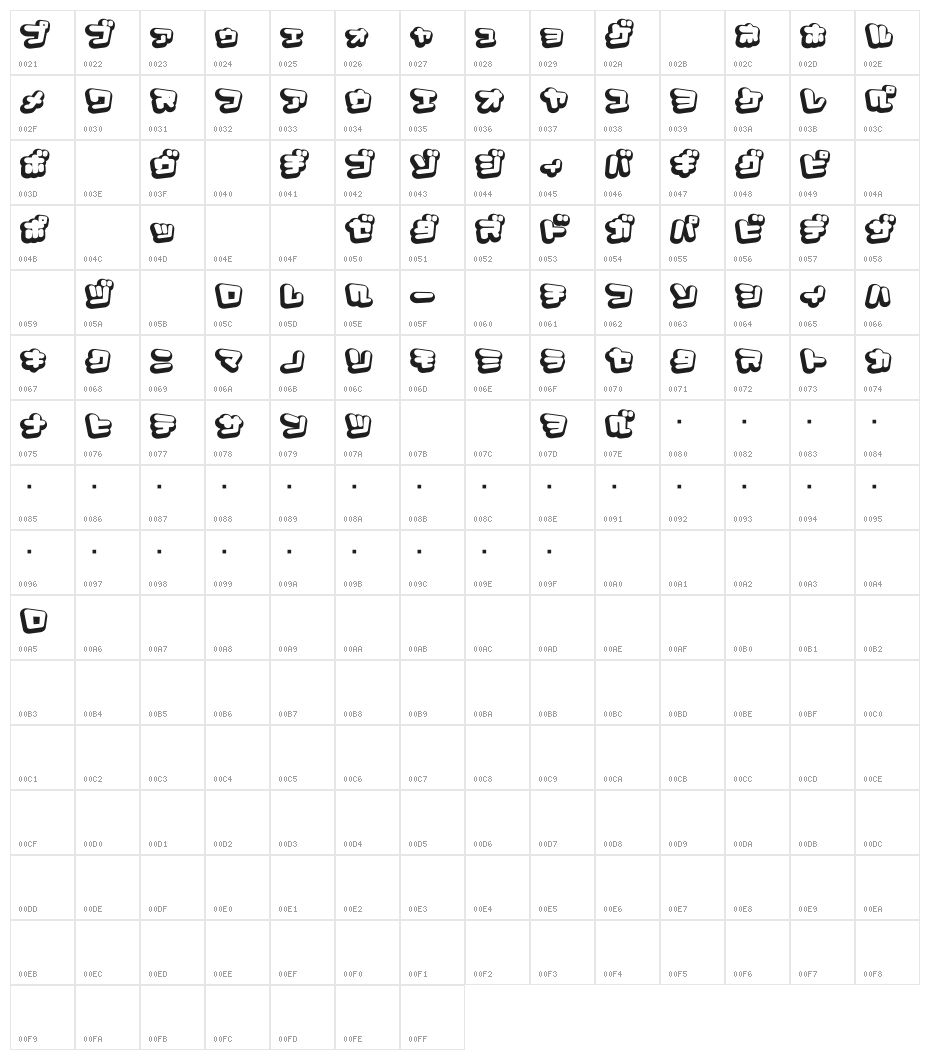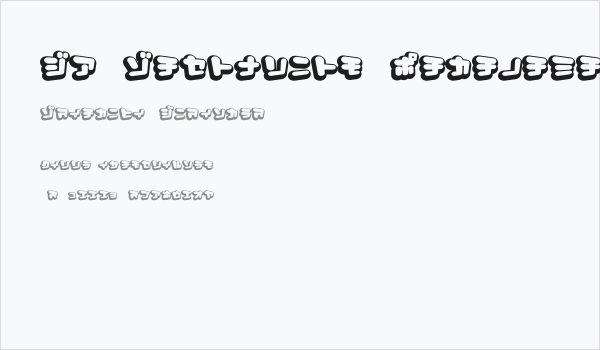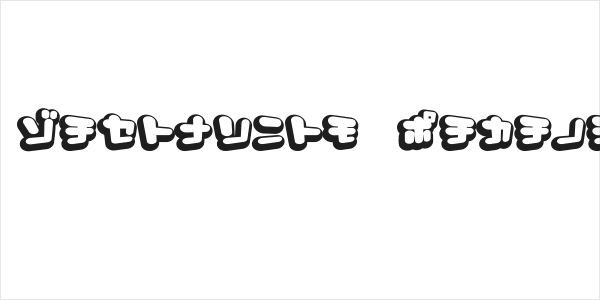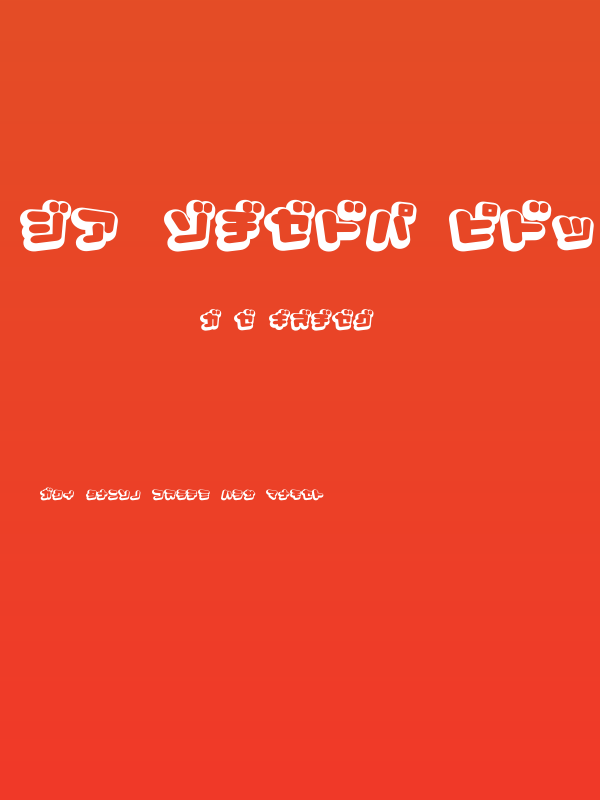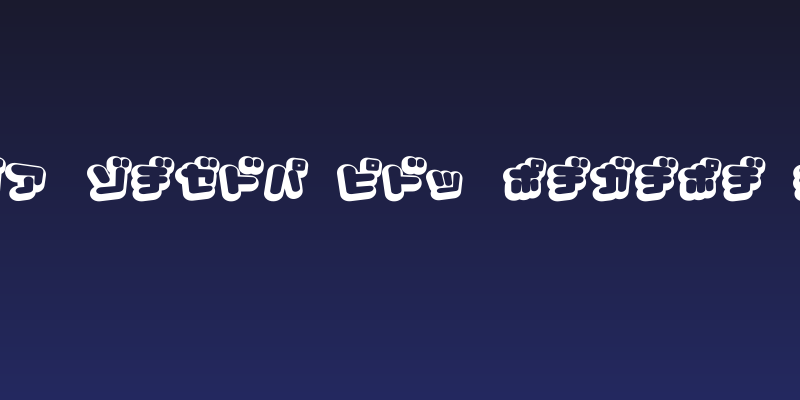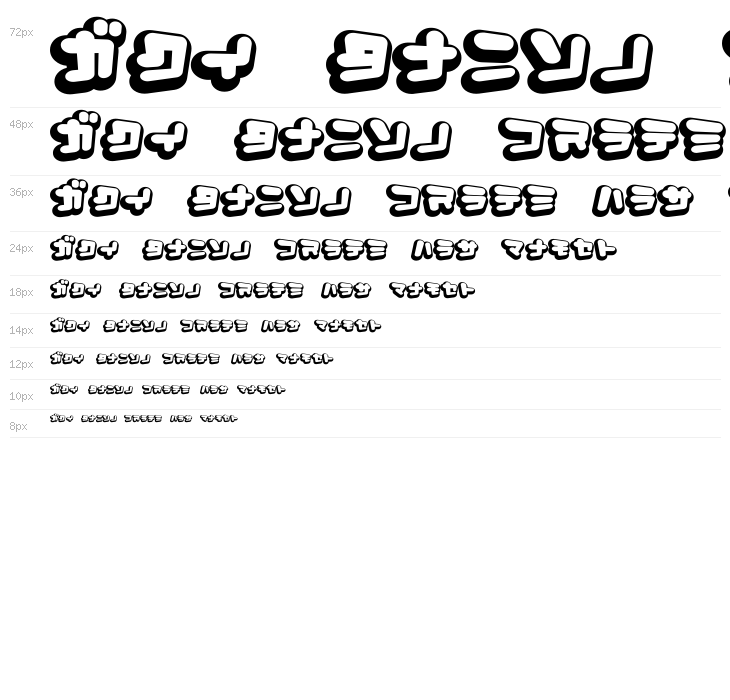
D3 Capsulism Katakana Font
D3 Capsulism Katakana Description
This font features bold, playful characters with a distinct bubble-like appearance, reminiscent of cartoon or comic styles. The characters are outlined with a thick black border, enhancing their visibility and giving them a three-dimensional effect. The strokes are uniformly thick, contributing to a consistent and cohesive look across all characters. This style is particularly eye-catching and suitable for designs that require a fun and energetic vibe. The font's rounded edges and exaggerated forms make it ideal for creative and informal applications.
| Overall Style | Playful, Cartoonish |
| Proposed Projects | Ideal for children's books, comic strips, playful branding, and event posters. |